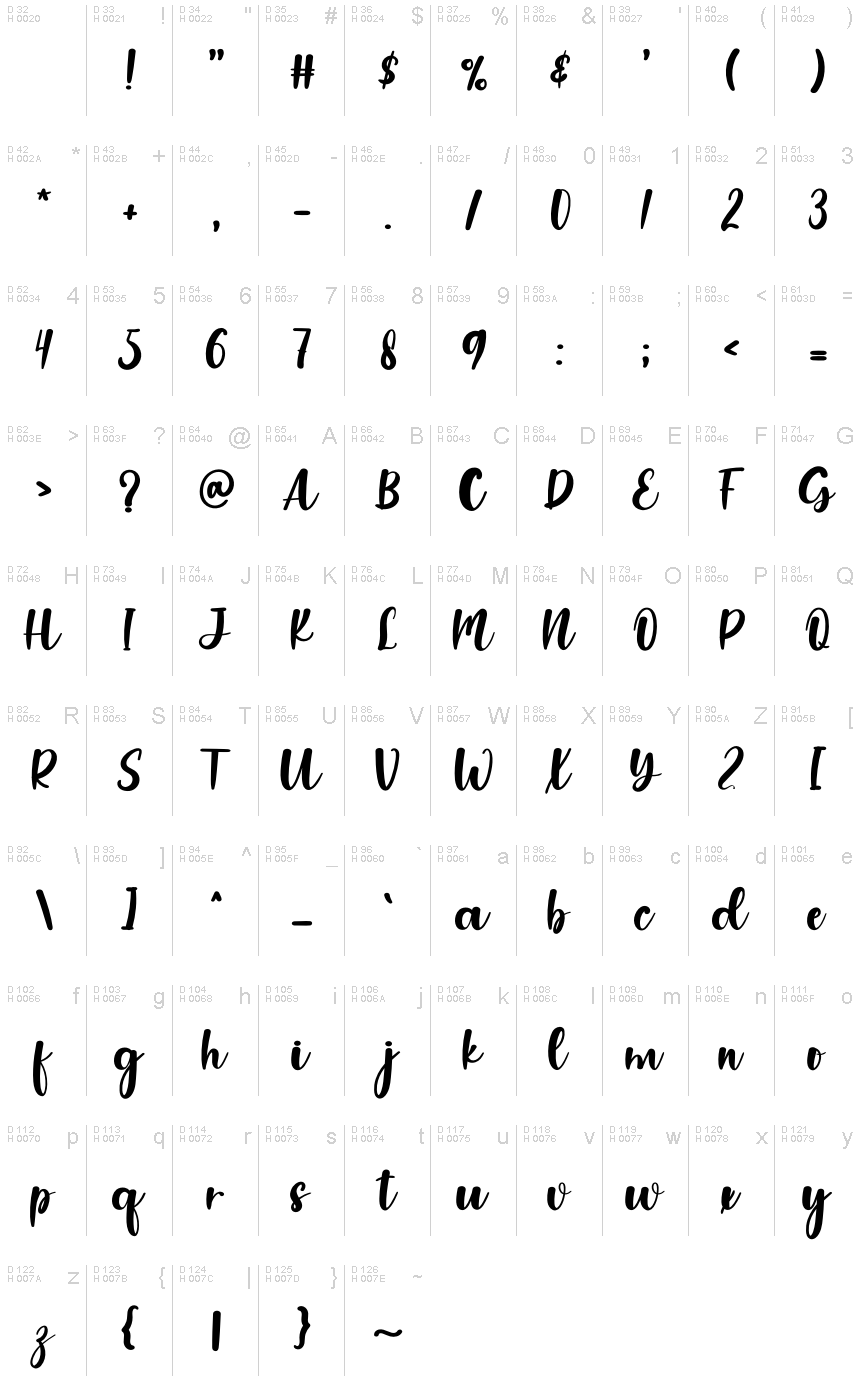
Winter
Winter, designed by PiPi Creative, flows across the page with a smooth brush style that evokes the elegance of hand lettering. The font's strokes dip and swell like the undulating rhythm of a serene winter landscape, bringing with it a sense of calm sophistication. Its organic aesthetic suggests warmth and personability, making it an inviting choice for designs that aim to establish an intimate connection with the audience.
Ideal for branding projects, invitations, and editorial work where a touch of personal flair is desired, Winter's brush-inspired charm enhances messages with its artful balance between casual grace and crafted precision. This font is poised to become a go-to choice for designers seeking to infuse their work with a handwritten look that resonates with both beauty and approachability.